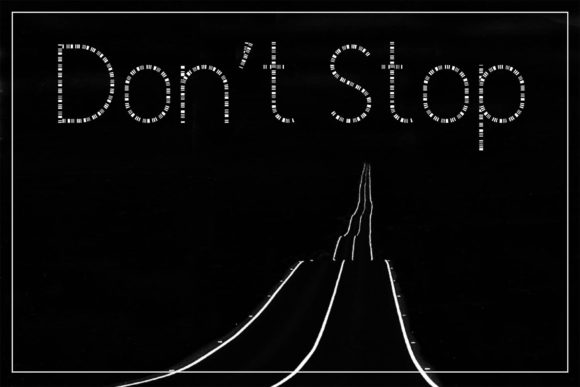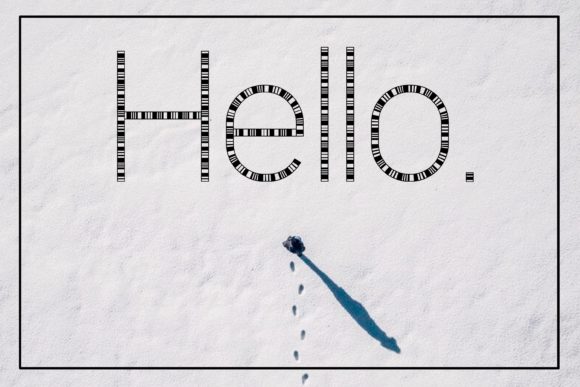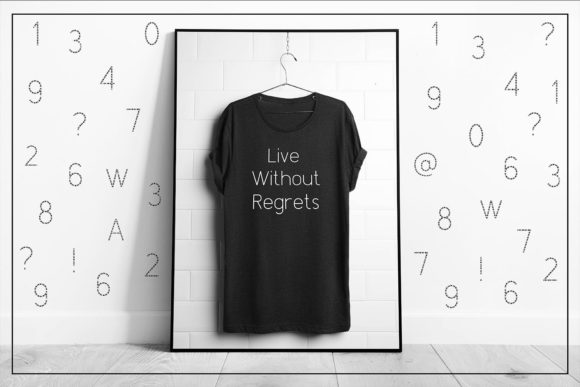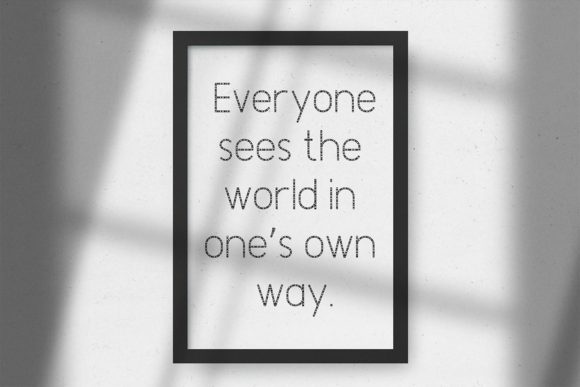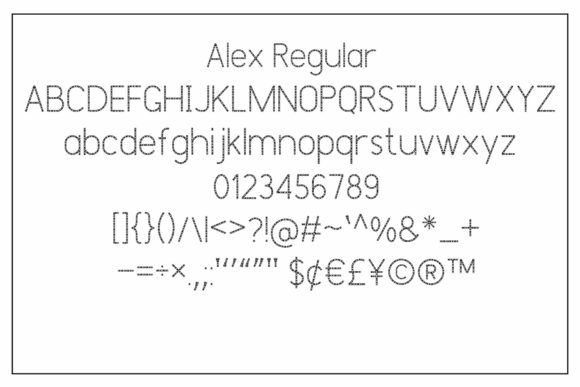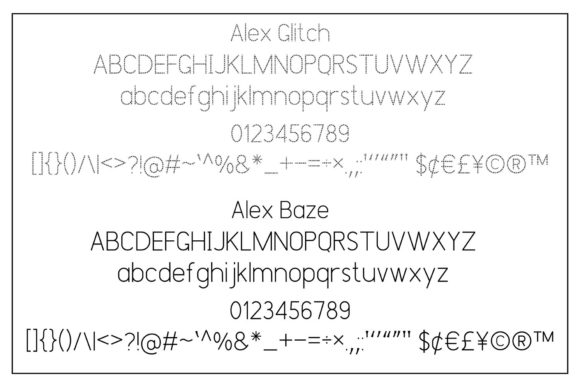
The Font That Brings Your Creative Ideas to Life
Have you ever sat in front of a blank canvas, staring at a blank page, or staring at a blank screen, trying to spark that one idea that will change everything? It’s a feeling we’ve all been there, right? The moment when creativity strikes and you know exactly what you want to create. For designers, that moment is the most thrilling, but it can also be the most challenging. This is where Alex Font comes in – a display font that’s been designed to elevate your creative vision and bring it to life.
Alex Font is more than just a font, it’s a tool that helps designers express their unique style and personality. With its simple yet unique design, it has the potential to become a true favorite among creatives. Whether you’re working on a logo, a branding project, or a graphic design piece, Alex Font is the perfect companion to help you bring your ideas to the highest level.
Alex Font Key Features
• Font Family: Alex Font is a sans-serif typeface.
• Size: The font family consists of multiple weights, ranging from Thin to Black, with corresponding sizes: 100-900.
• Unique Characteristics: Alex Font features a clean and modern design with geometric shapes, making it suitable for various digital applications, including UI/UX design, web development, and publishing.
Alex Font Review
Overall, I’d say Alex Font is a solid, yet unremarkable choice for typography needs. There are a few things that work well:
• ✨ Legibility: The font is easy to read, even at smaller sizes. It’s great for body text and can handle long passages of content without straining the reader’s eyes.
• ✨ Neutral feel: Alex Font doesn’t lean too heavily into any particular design aesthetic, making it a safe choice for projects where you want to avoid taking a risk with the typography.
• ✨ Good for print: The font renders well in print, with clear lines and no issues with ink bleeding or feathering.
• ⚠️ Lack of personality: While Alex Font is easy to read and neutral, it’s not particularly memorable or engaging. It won’t add much to the overall visual impact of your project.
• ⚠️ No bold or italic variations: The font only comes in a regular weight, which can limit your flexibility when it comes to creating visual hierarchy or emphasis.
Overall, I’d recommend Alex Font for projects where you need a simple, easy-to-read font without a lot of flair. Just be aware of its limitations and consider supplementing it with other fonts to add more visual interest.
Some common use cases for Alex Font include:
• Business cards and resumes
• Marketing materials and brochures
• Presentations and reports
Alternatives to Alex Font
Inter Font is a highly legible sans-serif font designed for digital use. It’s a great alternative to Alex Font when you need a clean and modern look for your designs. Inter Font has a more geometric and structured feel, making it ideal for corporate and tech-related projects.
Comparison to Alex Font: Inter Font is more geometric and structured, whereas Alex Font is more rounded and friendly. Inter Font is also more versatile and works well in various font sizes and styles.
Lato Font is a modern sans-serif font that’s highly customizable and adaptable to different design styles. It’s a great alternative to Alex Font when you need a font that’s both elegant and versatile. Lato Font has a more subtle and sophisticated feel, making it ideal for creative and luxury-related projects.